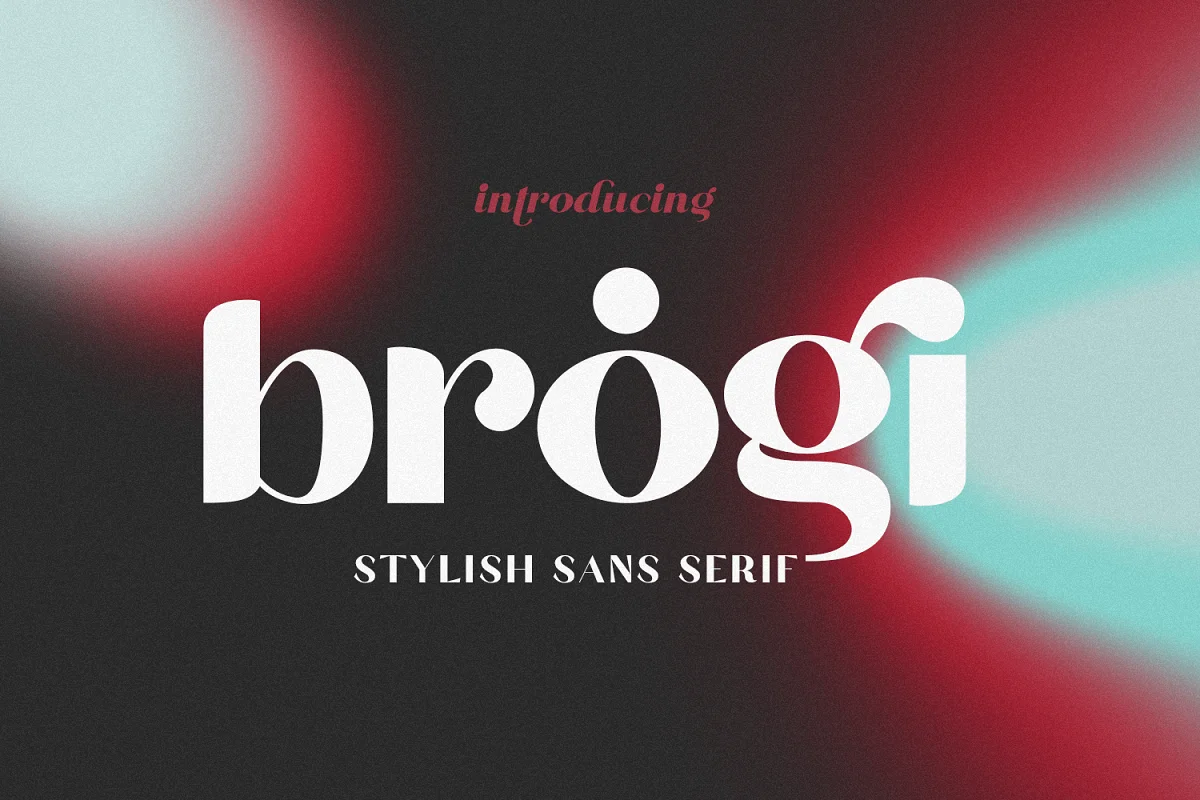
Brogi Font
Brogi Font is perfect for modern tech branding, corporate identity systems, professional website designs, minimalist logo creation, business presentations, contemporary editorial layouts, sleek mobile app interfaces, clean product packaging, sophisticated advertising campaigns, and polished digital content that requires sharp typographic clarity and professional credibility.
This font is exciting because it delivers exceptional geometric balance and contemporary styling that feels both approachable and authoritative. The clean letterforms and precise construction demonstrate meticulous design attention, making it an excellent choice for brands seeking to project modern professionalism, efficiency, and trustworthiness without sacrificing visual warmth or personality.
The Brogi Font family typically includes multiple weights from light to bold, uppercase and lowercase characters, numerals, comprehensive punctuation, special characters, extended language support, and alternative glyphs that ensure typographic versatility across diverse international markets and applications.
Whether you're developing professional brand identities, designing corporate communication materials, or creating user-friendly digital interfaces that prioritize clarity and modern aesthetics, Brogi Font Free Download provides the typographic foundation for effective contemporary communication. Its clean character and professional flexibility make every project feel more polished and credible, ensuring your designs effectively convey reliability, modern sophistication, and professional excellence that builds trust with audiences and establishes strong brand recognition across all digital and print touchpoints.